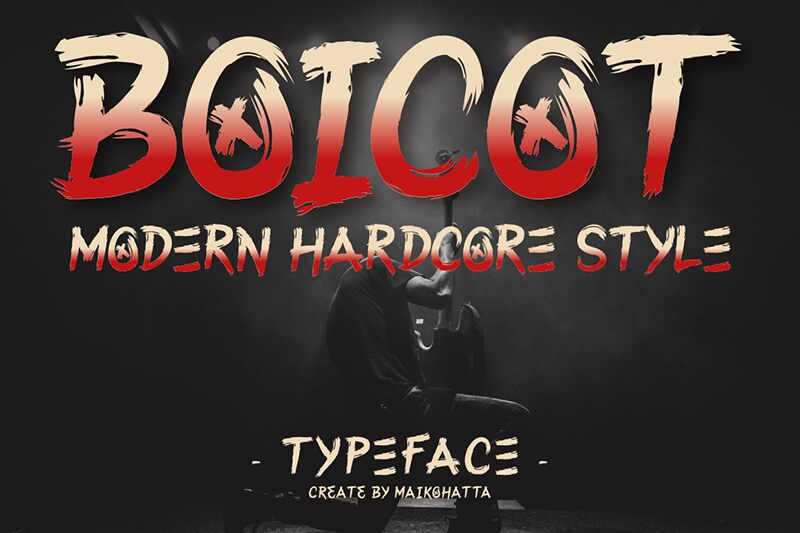
Boicot by ©Maikohatta is a free dry-brush display font with a rough, hand-painted rhythm. The letters feel fast and defiant, with frayed edges, thick brush sweeps, and scratchy interior marks that give the caps a gritty poster energy rather than a smooth scripted flow.
It works naturally in music flyers, protest-style posters, streetwear graphics, zine covers, and bold social headers where a free font with visible brush drag feels more human than polished lettering. Keep it to short headlines, title cards, monograms, or big pull quotes - the uneven strokes and scuffed texture do the talking best when the wording stays brief.